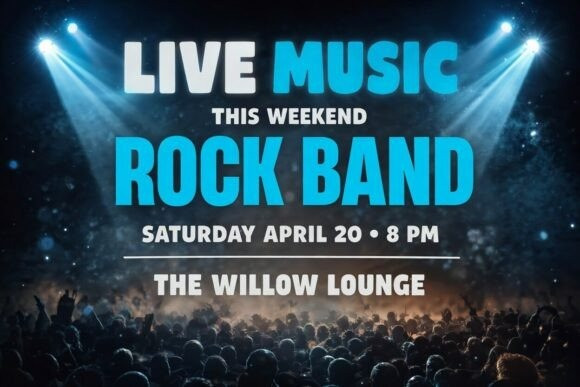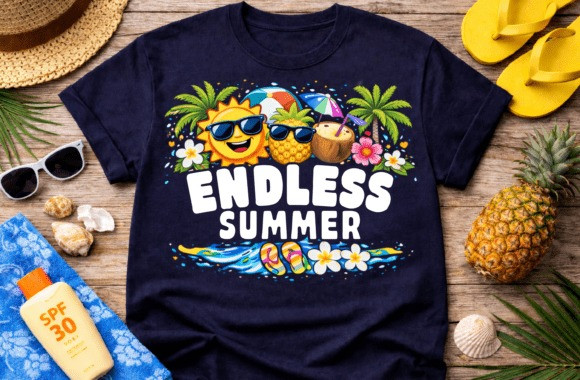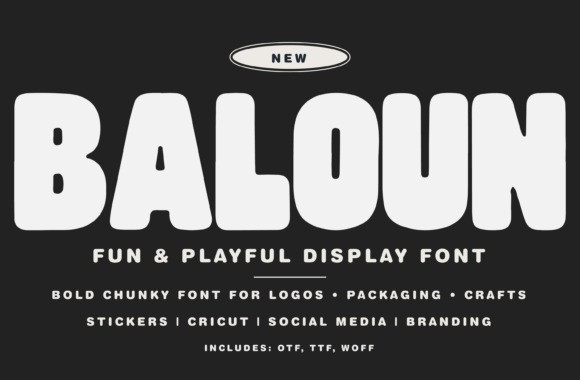
BALOUN FONT
BALOUN FONT a bold, chunky display font designed to bring instant personality and impact to your creative projects. With its rounded shapes and playful character, Baloun is perfect for designs that need to stand out while staying friendly and approachable.
Whether you’re creating eye-catching logos, standout packaging, or scroll-stopping social media graphics, Baloun delivers a modern, fun aesthetic that captures attention and keeps it.